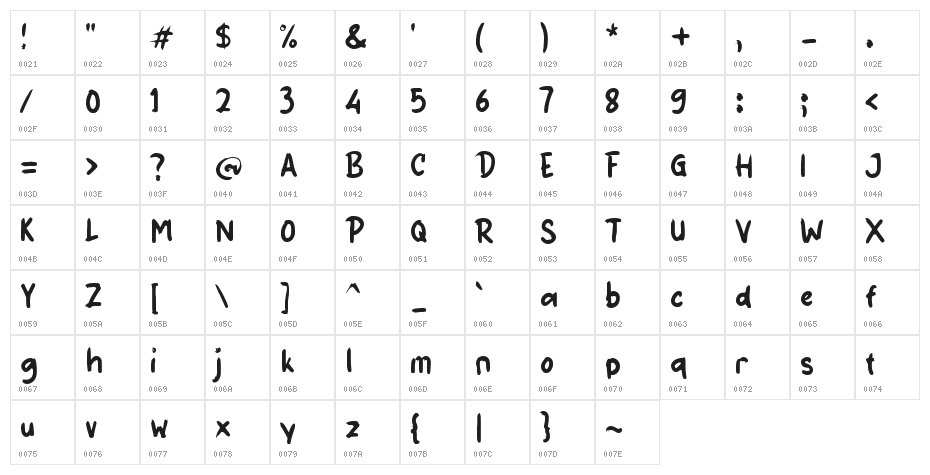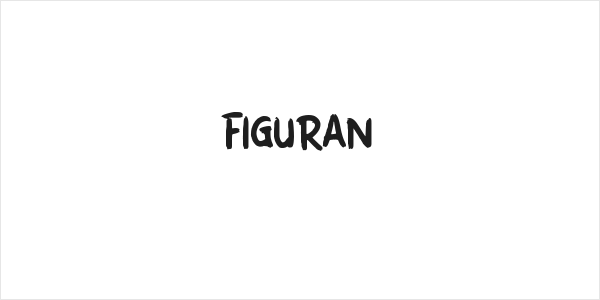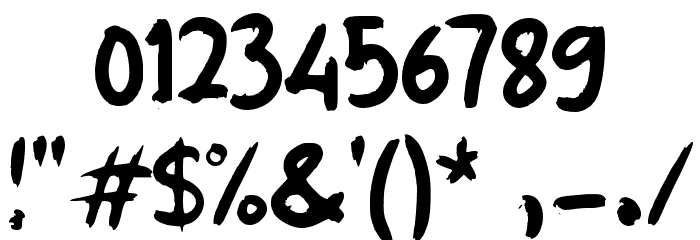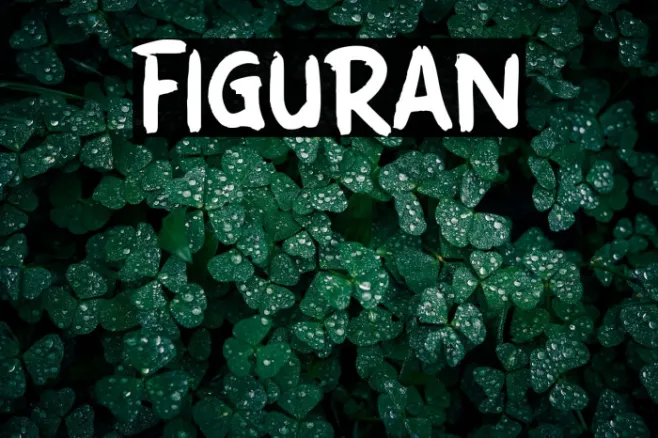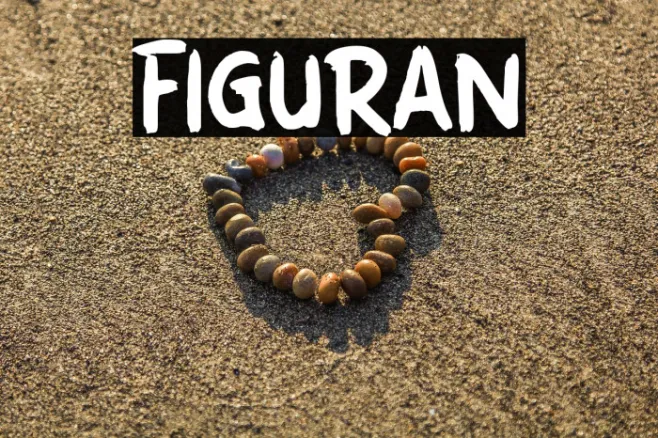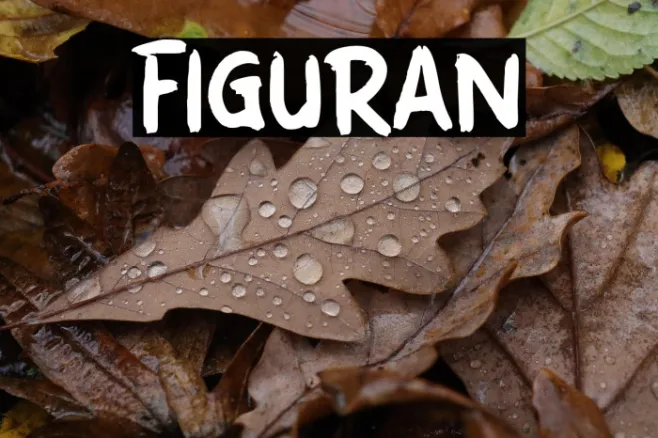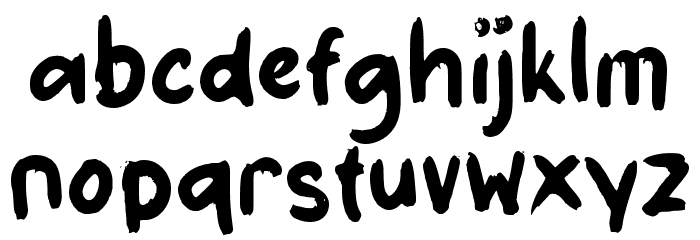
FIGURAN Font
FIGURAN Description
This font exhibits a bold, hand-drawn style with a playful and informal appearance. The characters are slightly irregular, giving it a lively and dynamic feel. The uppercase and lowercase letters maintain a consistent thickness, contributing to a cohesive look. The numbers and special characters follow the same aesthetic, ensuring uniformity across all glyphs. The strokes are thick and rounded, which adds to its friendly and approachable nature. This font is ideal for projects that require a casual and fun vibe, such as children's books, posters, or creative branding materials.
| Overall Style | Playful, Informal |
| Proposed Projects | Ideal for children's books, playful posters, creative branding, and casual invitations. |